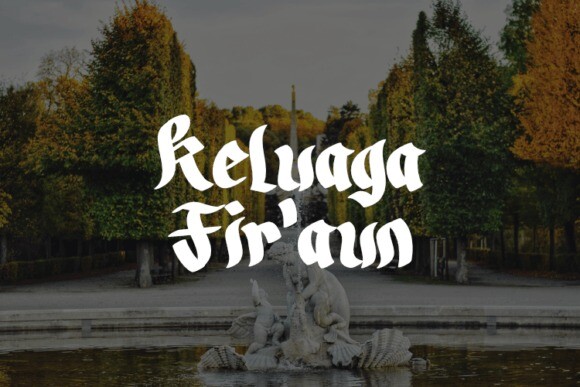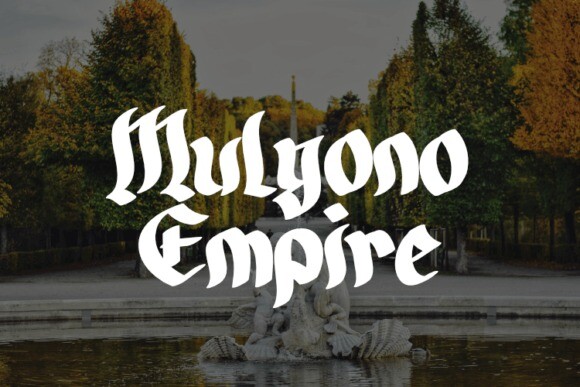
Mulyono Empire Font
Mulyono Empire Font – a versatile font designed to elevate your fashion and product creations. This distinctive typeface breathes life into everything, from clothing designs to t-shirt prints, making it an essential tool for any design endeavor. With universal compatibility, Mulyono Empire seamlessly integrates with any software for a smooth designing experience. Its versatility coupled with its unique style makes it an indispensable asset for all design needs. Embrace the power of Mulyono Empire and transform your design landscape!